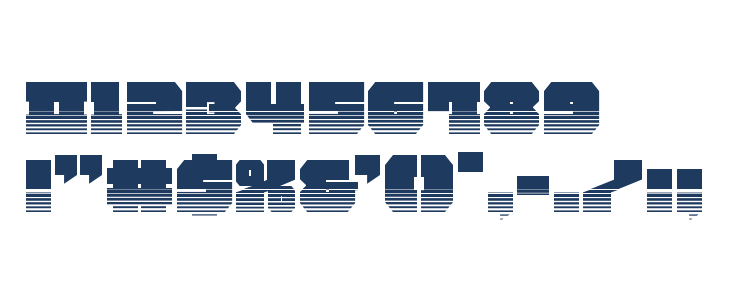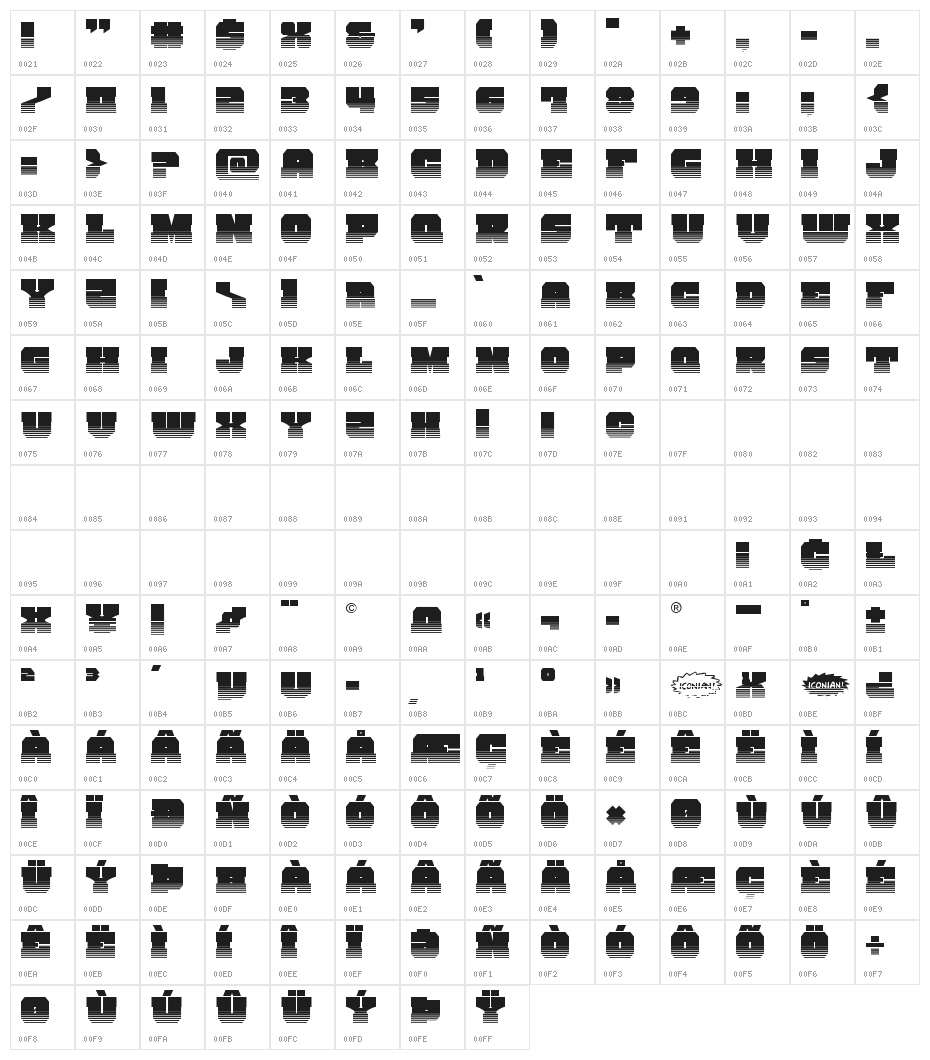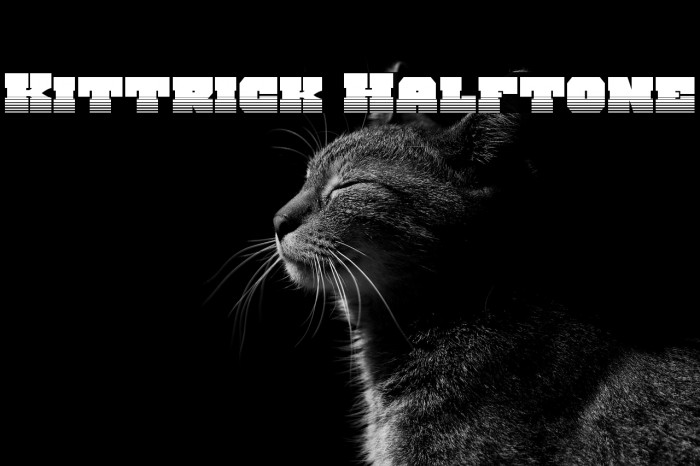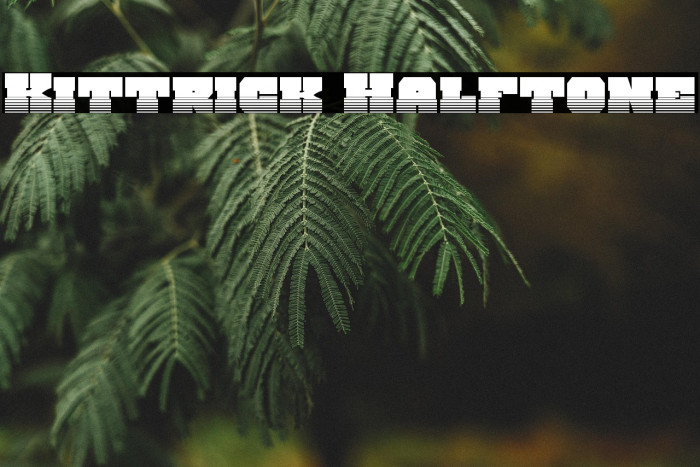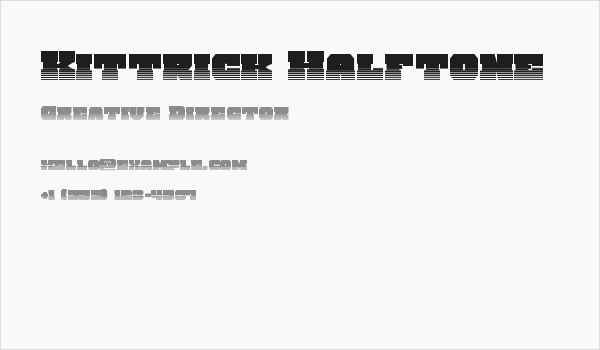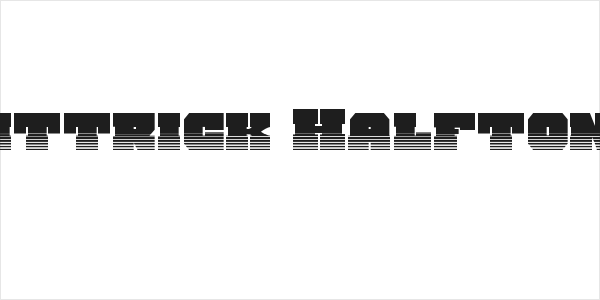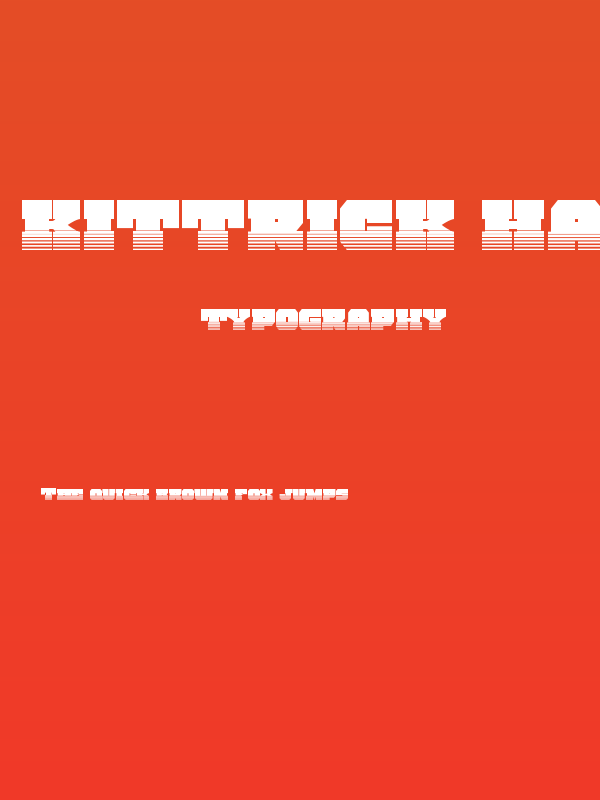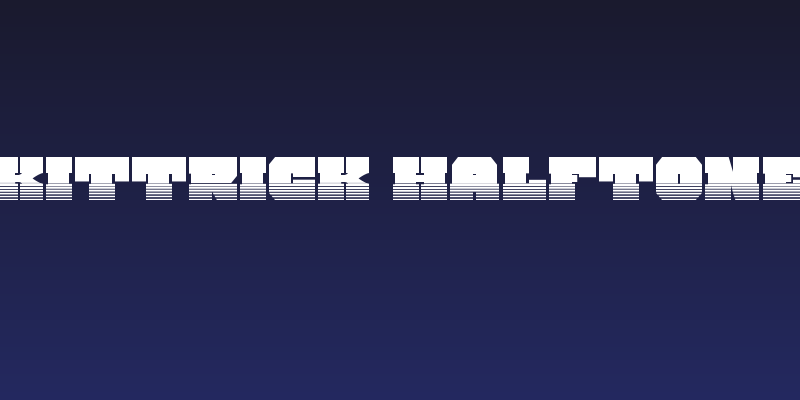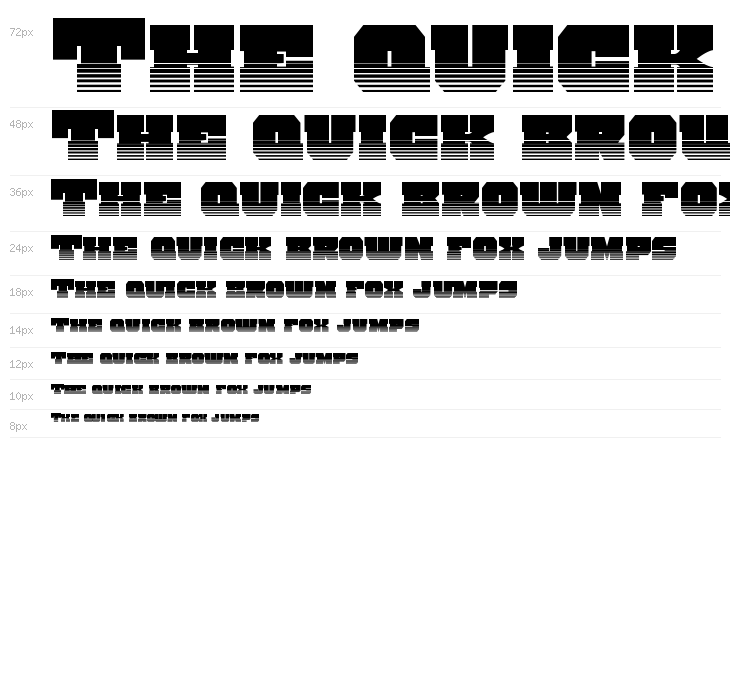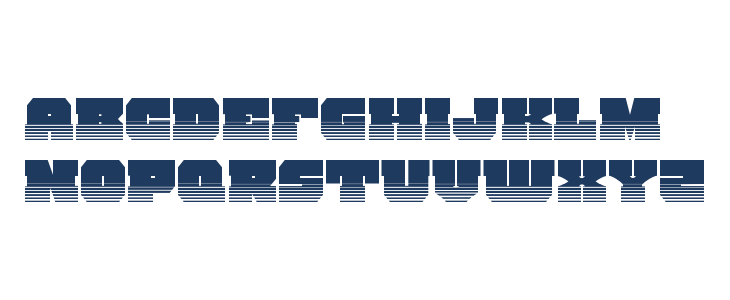
Kittrick Halftone Font
Kittrick Halftone Description
This font features a bold, geometric design with a distinct halftone pattern that creates a striking visual effect. The characters are constructed with horizontal lines that vary in thickness, giving the font a unique, layered appearance. The uppercase and lowercase letters maintain a consistent style, with sharp angles and a blocky structure that enhances its boldness. The numbers and special characters follow the same design principles, ensuring uniformity across all glyphs. This font is ideal for projects that require a modern and edgy look, making it perfect for headlines, posters, and branding materials.